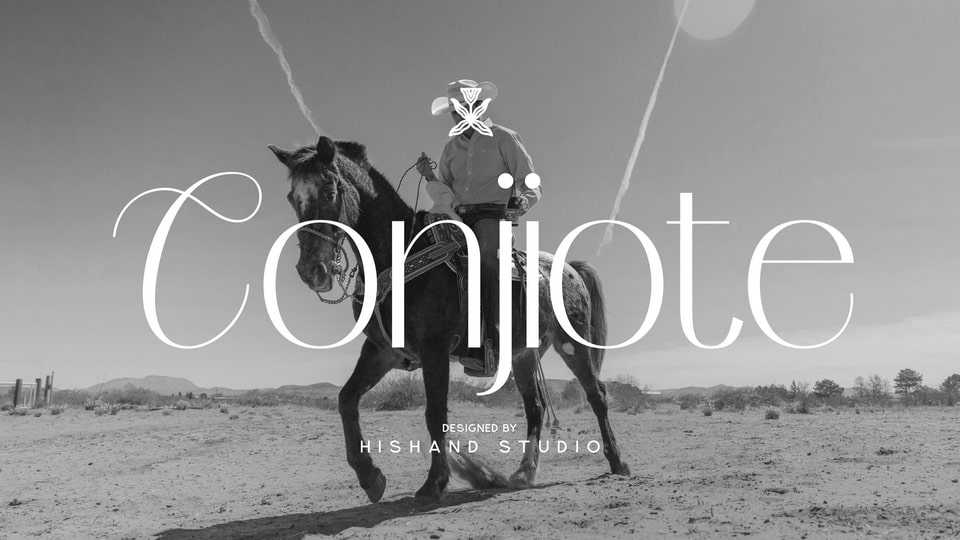
Download Conjiote font, a refined sans serif typeface that gracefully blends clean modernity with the flair of elegant script. Designed to evoke sophistication and charm, Conjiote balances minimalism with artistic curves